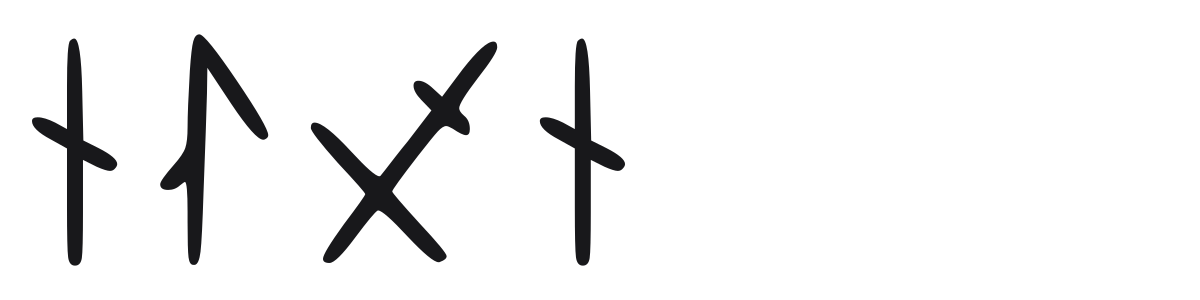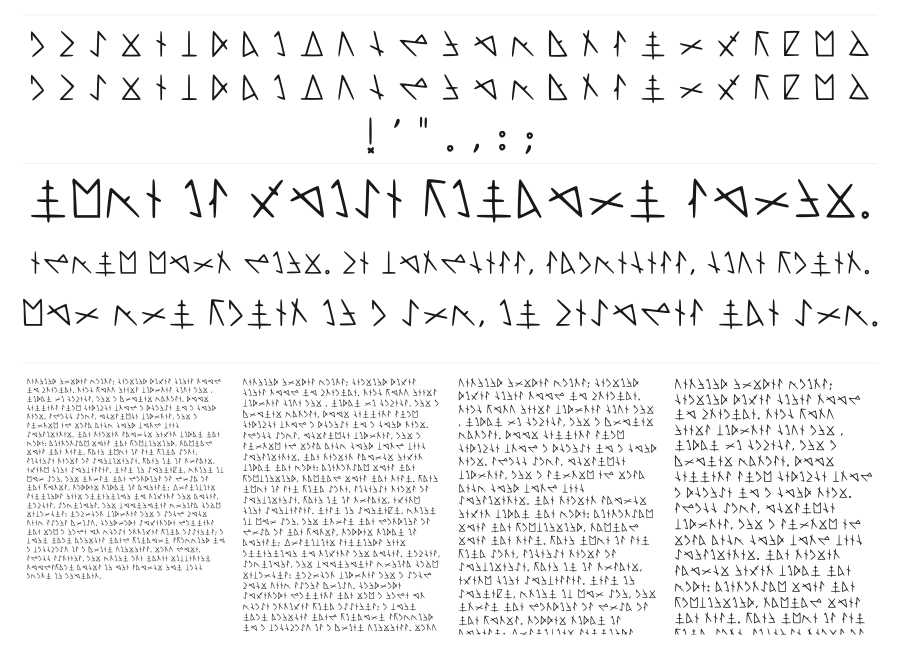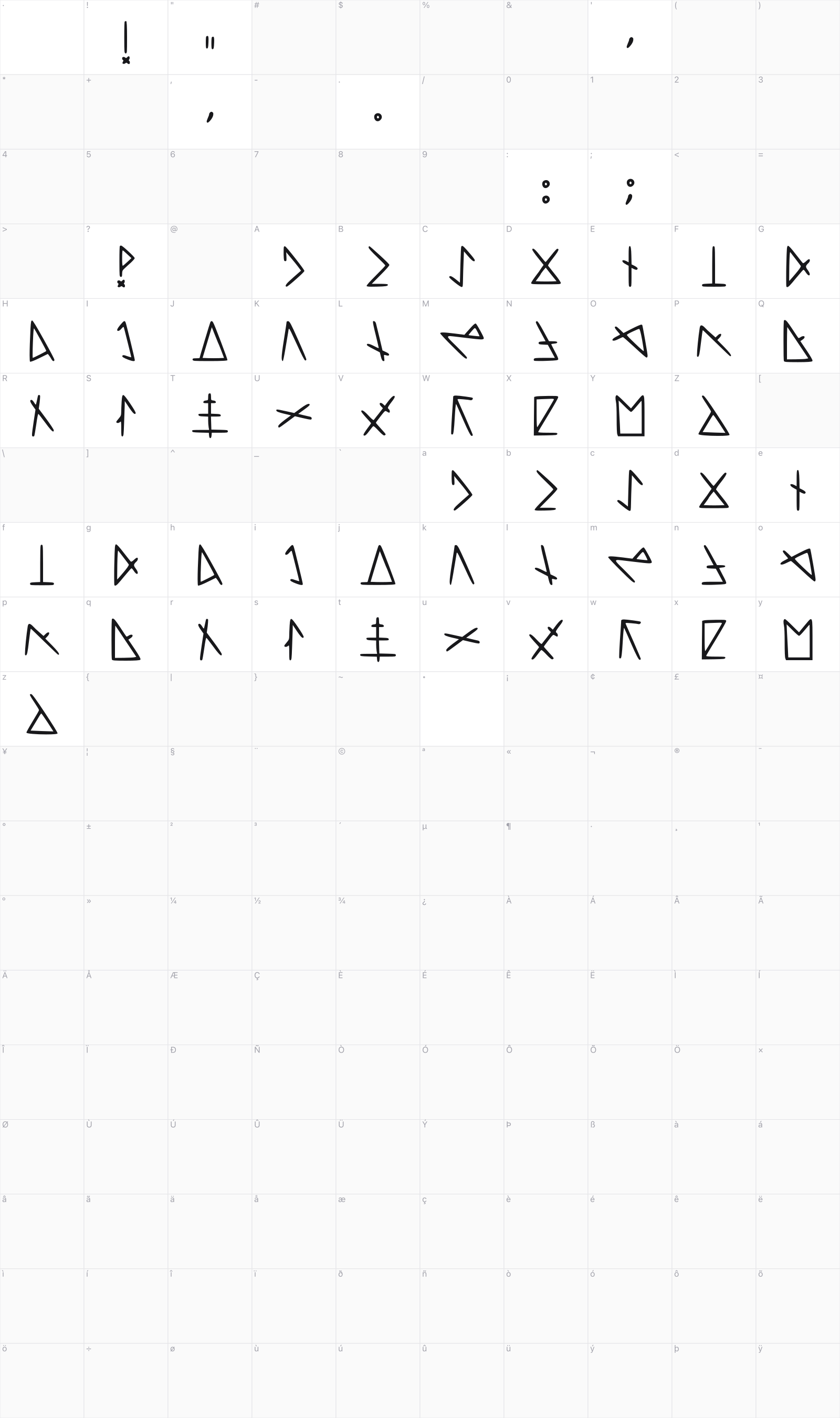
Esve
by Lyric Storm
Esve is a font based on the ESVE alphabet from the Messengers ARG, an alternate reality game cipher script. Each character is built from sparse angular strokes that read as alien or runic, with a loose hand-drawn quality that keeps it from feeling purely mechanical. Useful anywhere a mysterious, constructed-language aesthetic is called for.